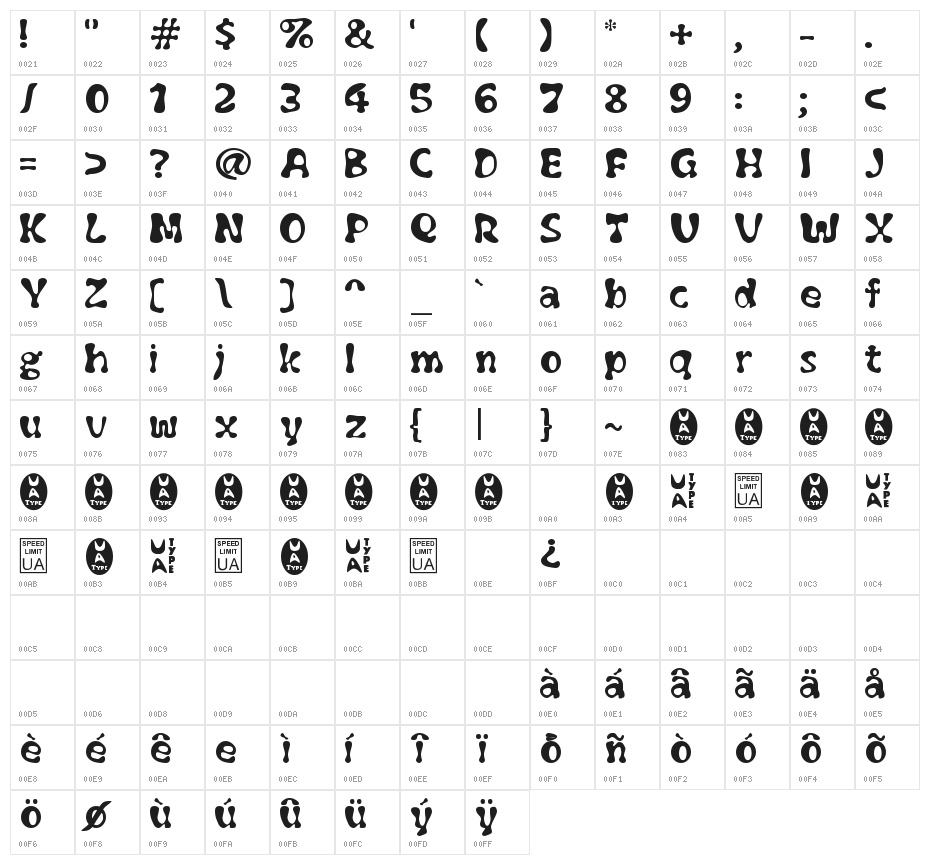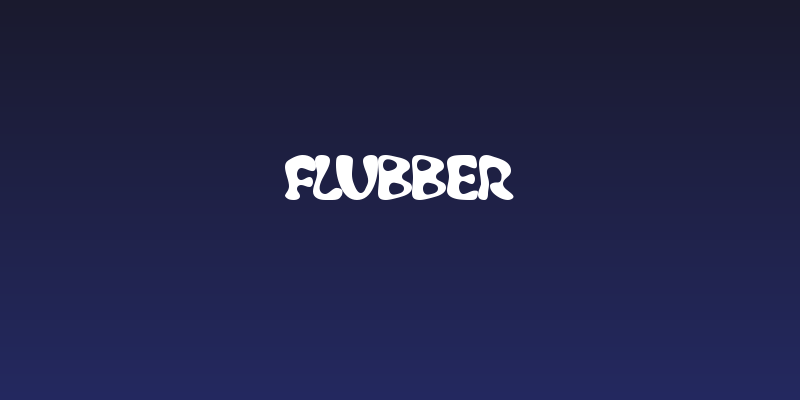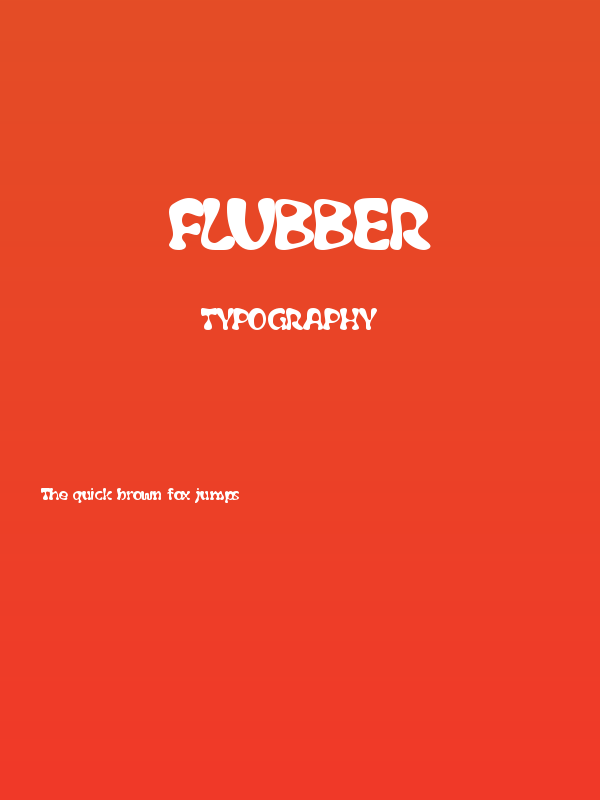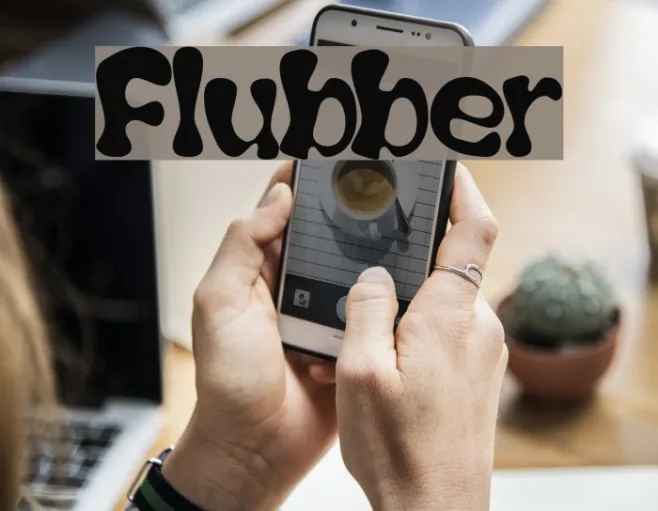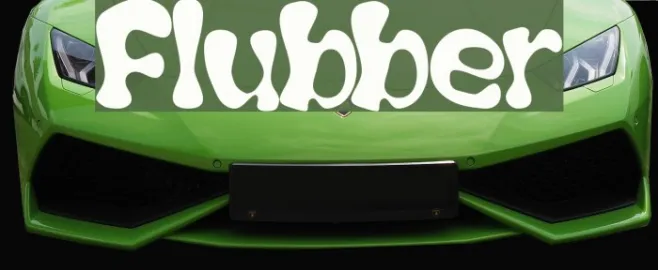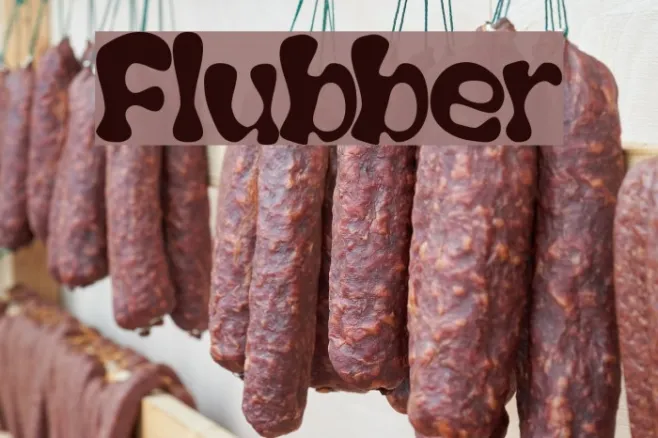
Flubber Font
Flubber Description
This playful and whimsical font features a bubbly, organic design that evokes a sense of fun and creativity. Each character is crafted with a fluid, almost liquid-like appearance, giving it a unique and dynamic feel. The rounded edges and irregular shapes contribute to its informal and friendly style, making it ideal for projects that require a touch of humor or lightheartedness. The font maintains consistent thickness throughout, ensuring readability while still embracing its unconventional aesthetic. Its distinctiveness makes it suitable for eye-catching headlines, children's books, or any creative endeavor that seeks to stand out.